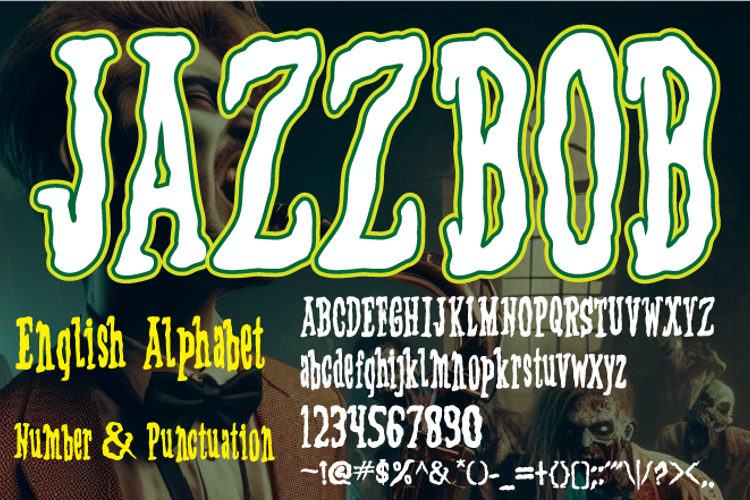
JAZZBOB Font
JAZZBOB is a horror display font with gore inspiration.
i hope this font perfect for creating text Book, Comic text Book, youtube banner,
horror event, poster ETC.
- Uppercase & lowercase letters, numbers, punctuation